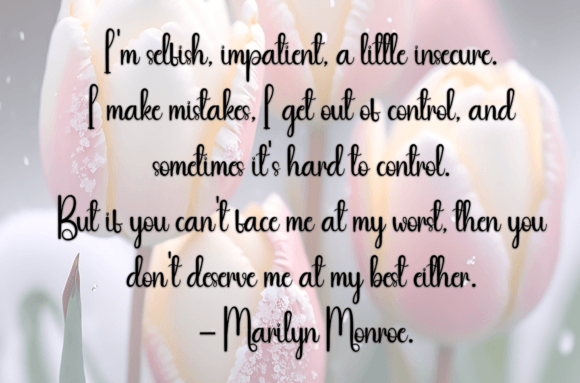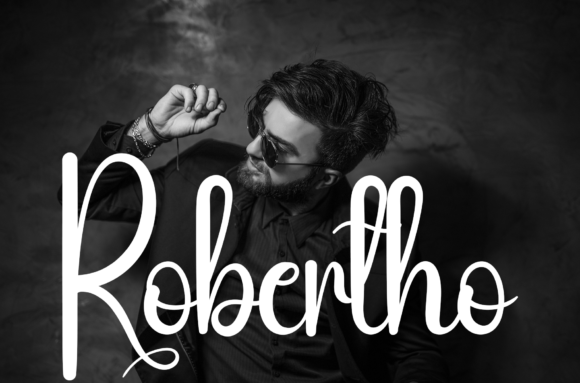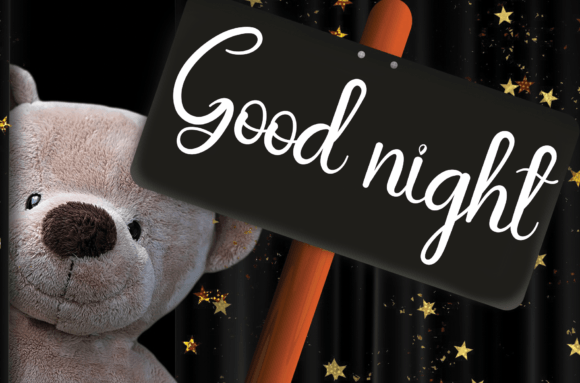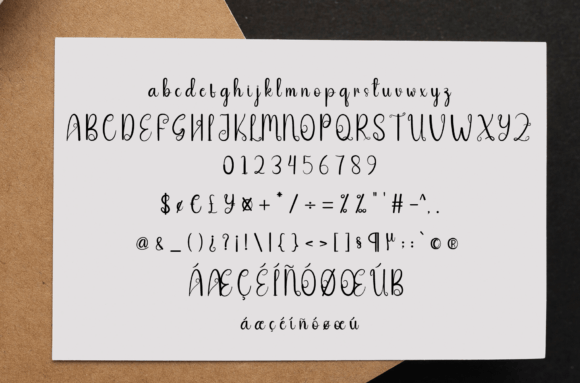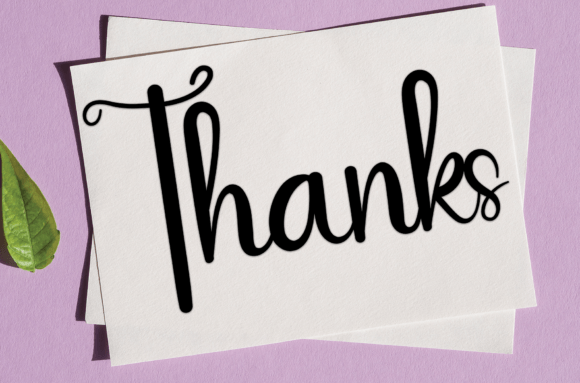
The Sweet Charm of Butterfly Font: A Designer’s Delight
I’ll never forget the time I was working on a wedding invitation project, and my client asked for a font that was “whimsical, yet elegant.” I scoured the internet, tried out countless fonts, but nothing seemed quite right. That was until I stumbled upon Butterfly Font. This sweet, handwritten font has been a game-changer for my designs, and I’m excited to share its charm with you! 😊
I’ve had the pleasure of working with Butterfly Font on several projects, and here’s what I think:
- ✨ Friendly and approachable feel that’s perfect for creative projects
- ✅ Easy to read, even in smaller sizes
- 💕 Beautifully crafted with a playful, handwritten touch
- 🎉 Supports OpenType features, glyphs, and stylistic alternates for added versatility
While Butterfly Font is a stunning addition to any design, there are a few things to keep in mind:
- 🤔 Some users may find the font a tad too “cute” for certain projects, so use it judiciously
- ⚠️ Limited availability of Cyrillic and non-English characters (but perfect for English-based designs)
Butterfly Font was crafted with love by a talented type designer who wanted to create a font that captured the whimsy and charm of handwritten writing. With inspiration from vintage letters and playful illustrations, this font was born to bring a smile to designers’ faces and a touch of elegance to their projects.
| What type of projects is Butterfly Font best suited for? | Butterfly Font is perfect for creative projects like wedding invitations, cards, and other designs that need a playful touch. |
| Is Butterfly Font suitable for body text? | While Butterfly Font is beautiful, it’s best used for headings and titles. For body text, consider a more traditional font for better readability. |
| Does Butterfly Font support OpenType features? | Yes, Butterfly Font supports OpenType features, glyphs, and stylistic alternates, giving you more creative control over your designs. |